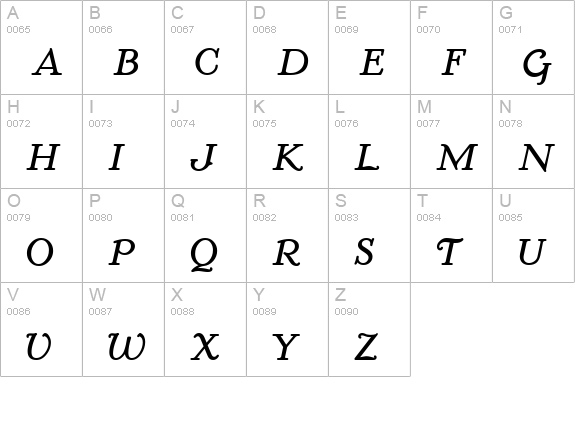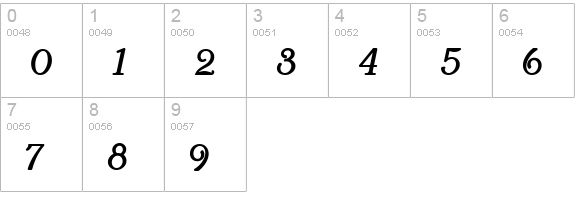
McKenna Handletter NF Bold Italic Font Details
McKenna Handletter NF Bold Italic is a strong, high-contrast, italic variant in the McKenna typeface family \xE2\x80\x94 well suited to headlines, attention-grabbing titles, and strong calls-to-action.
McKenna Handletter NF Bold Italic is a striking and expressive font that exudes elegance and sophistication. Its bold and italic design adds a touch of flair to any project, making it perfect for titles, headers, and other eye-catching elements. With its unique hand-lettered style, McKenna Handletter NF Bold Italic is versatile and adaptable, suitable for a wide range of design applications. What sets McKenna Handletter NF Bold Italic apart is not only its visual appeal but also the fact that it is available for free download at FontsMarket.com. This means that you can access this stunning font without any cost, making it an excellent choice for designers looking to add a touch of creativity to their projects without breaking the bank. Whether you're working on a branding project, creating invitations, or designing social media graphics, McKenna Handletter NF Bold Italic is sure to make a statement. Its bold and italic design will help your text stand out and capture attention, while its free availability ensures that you can use it in your designs without any restrictions. Download McKenna Handletter NF Bold Italic today and elevate your designs with this beautiful and distinctive font.